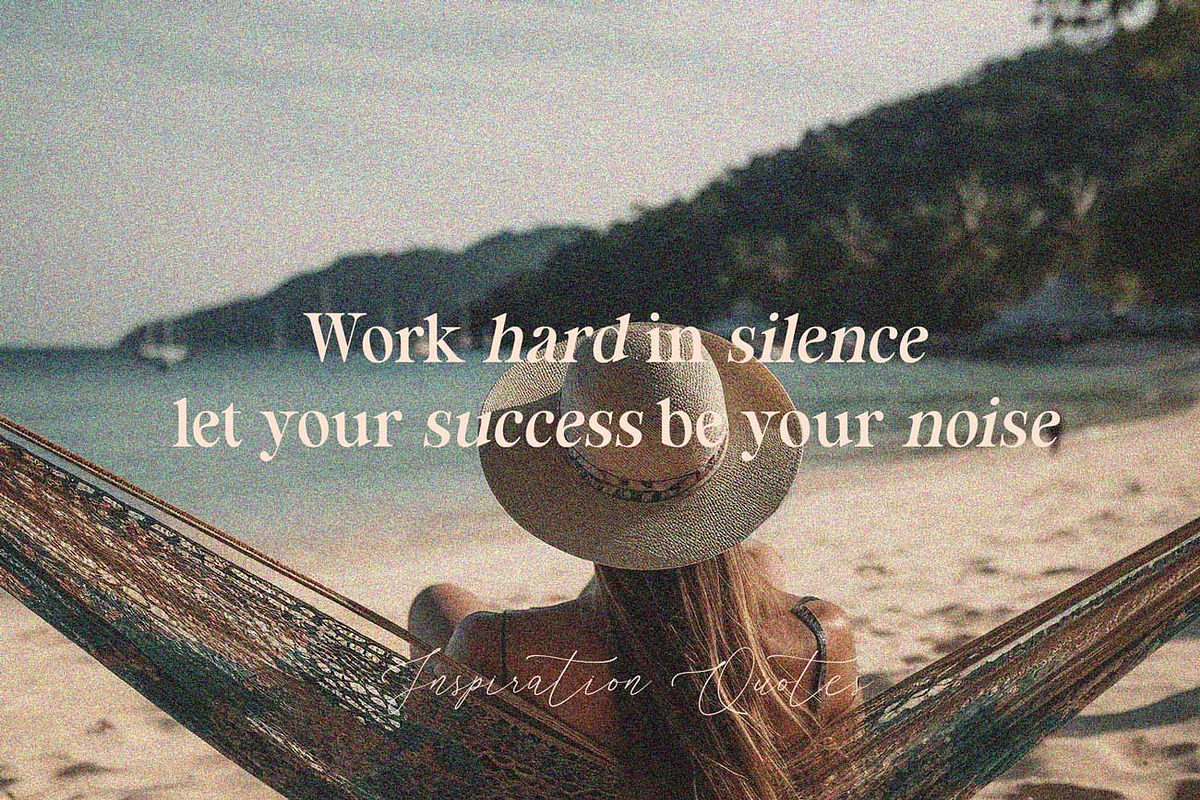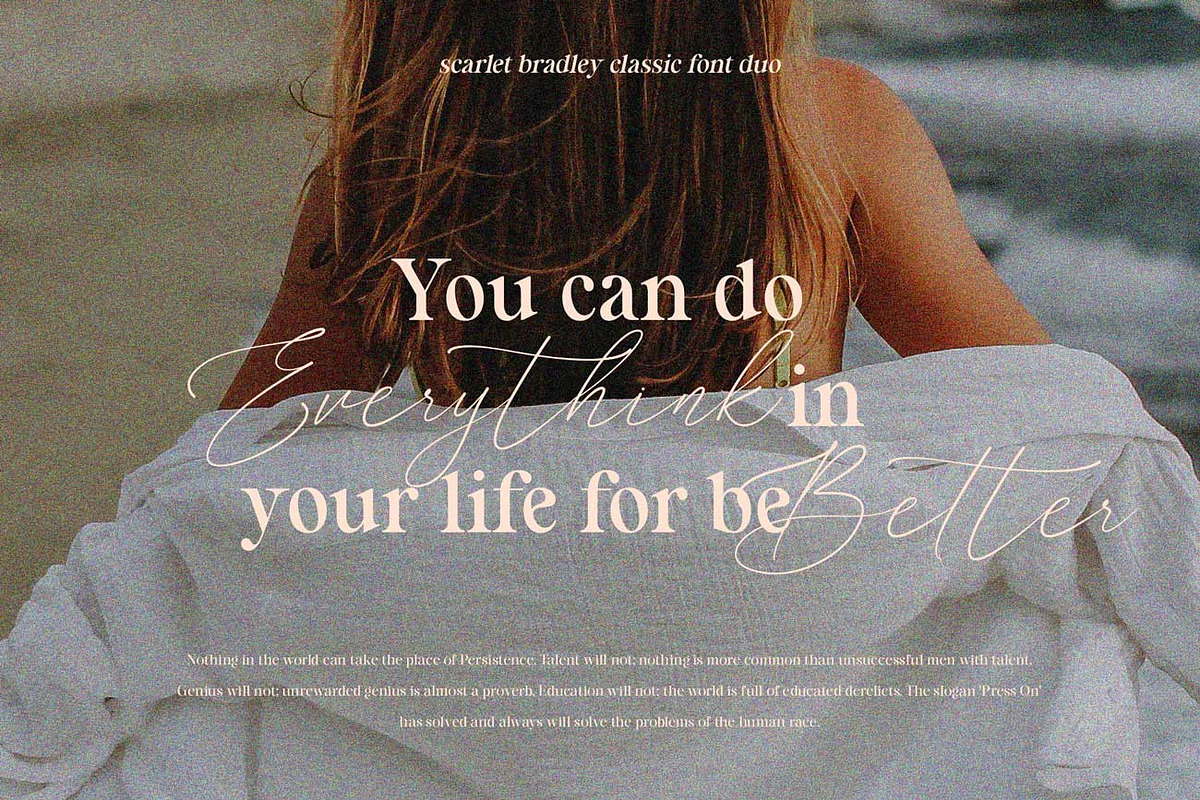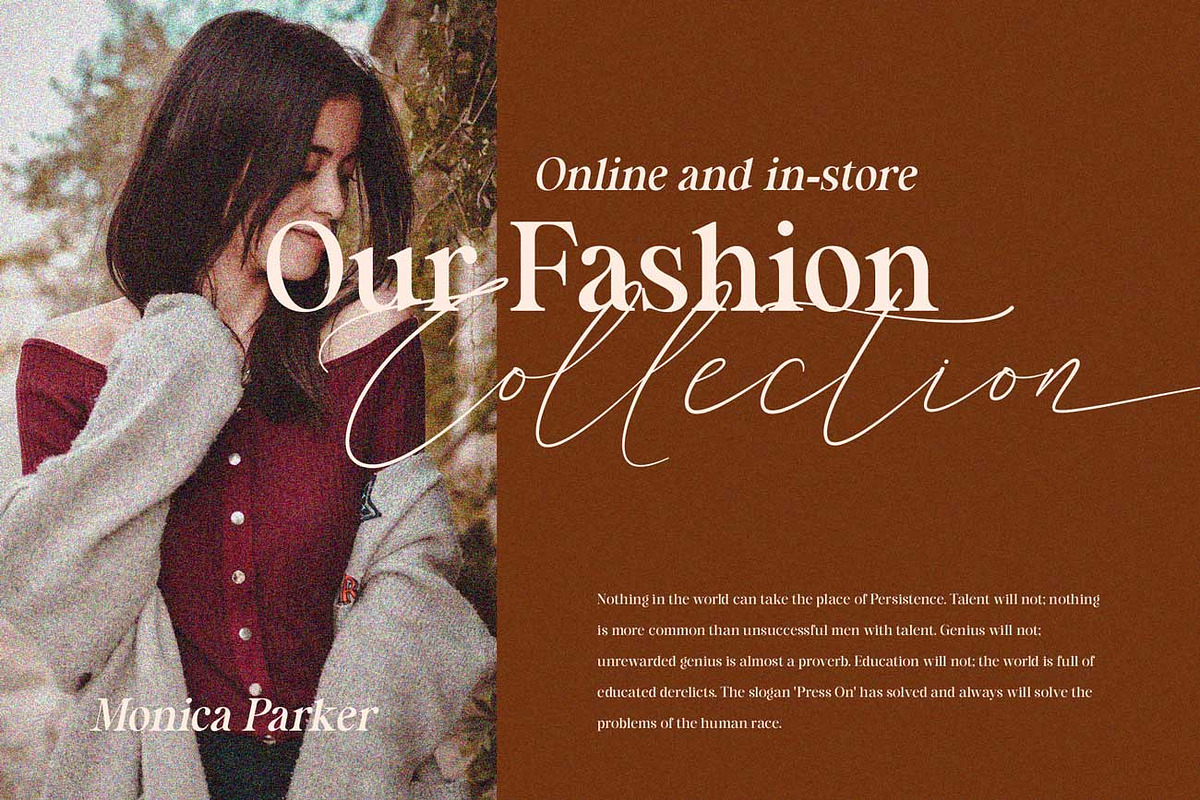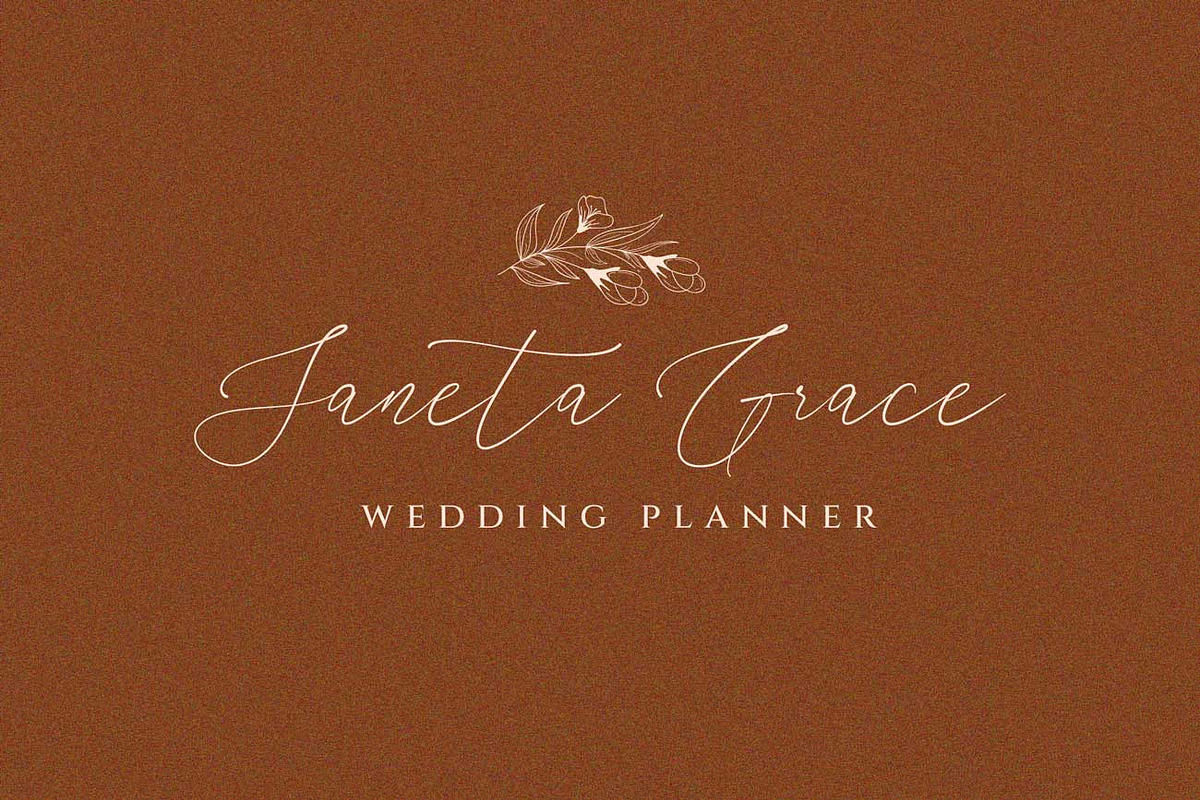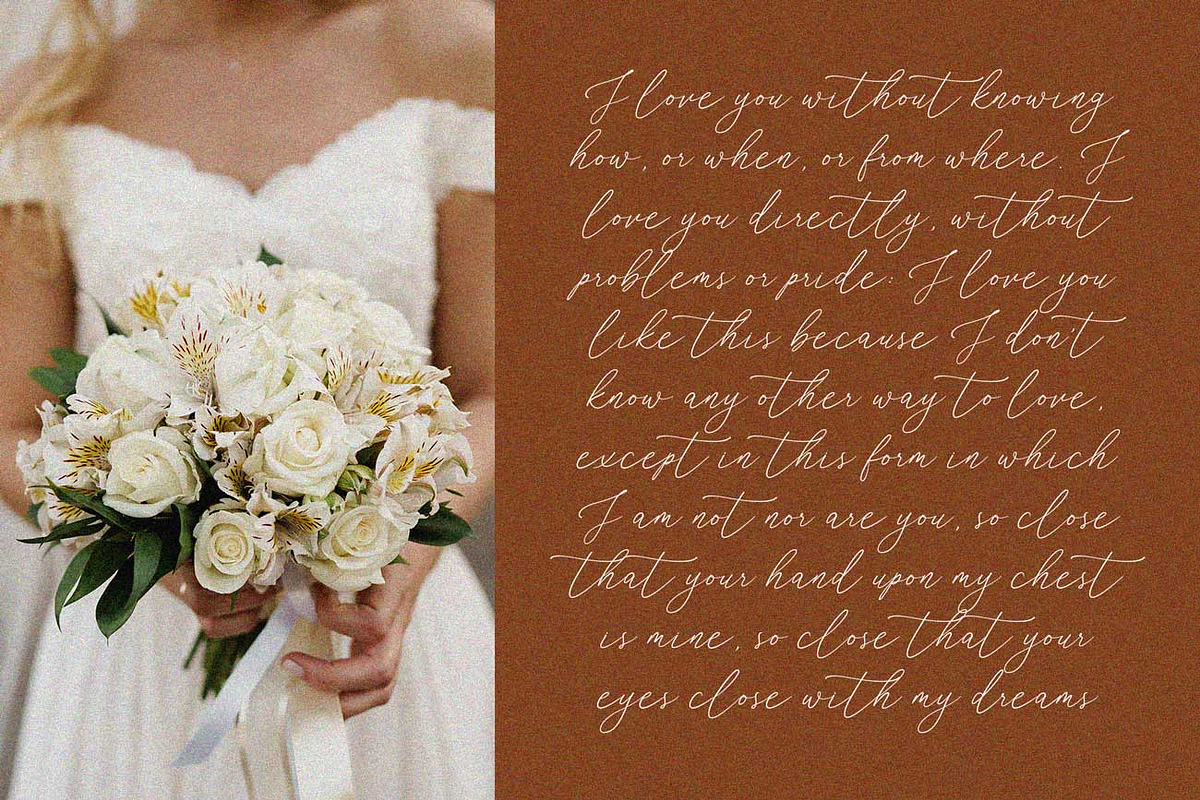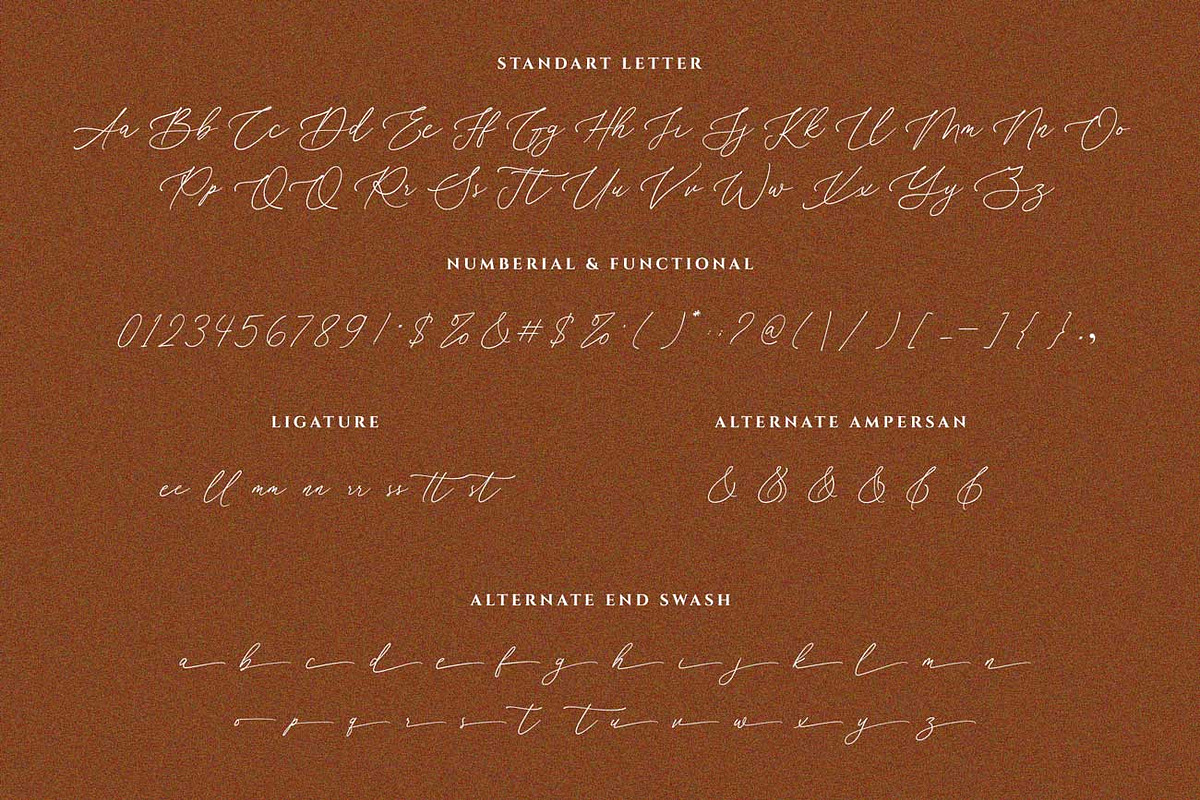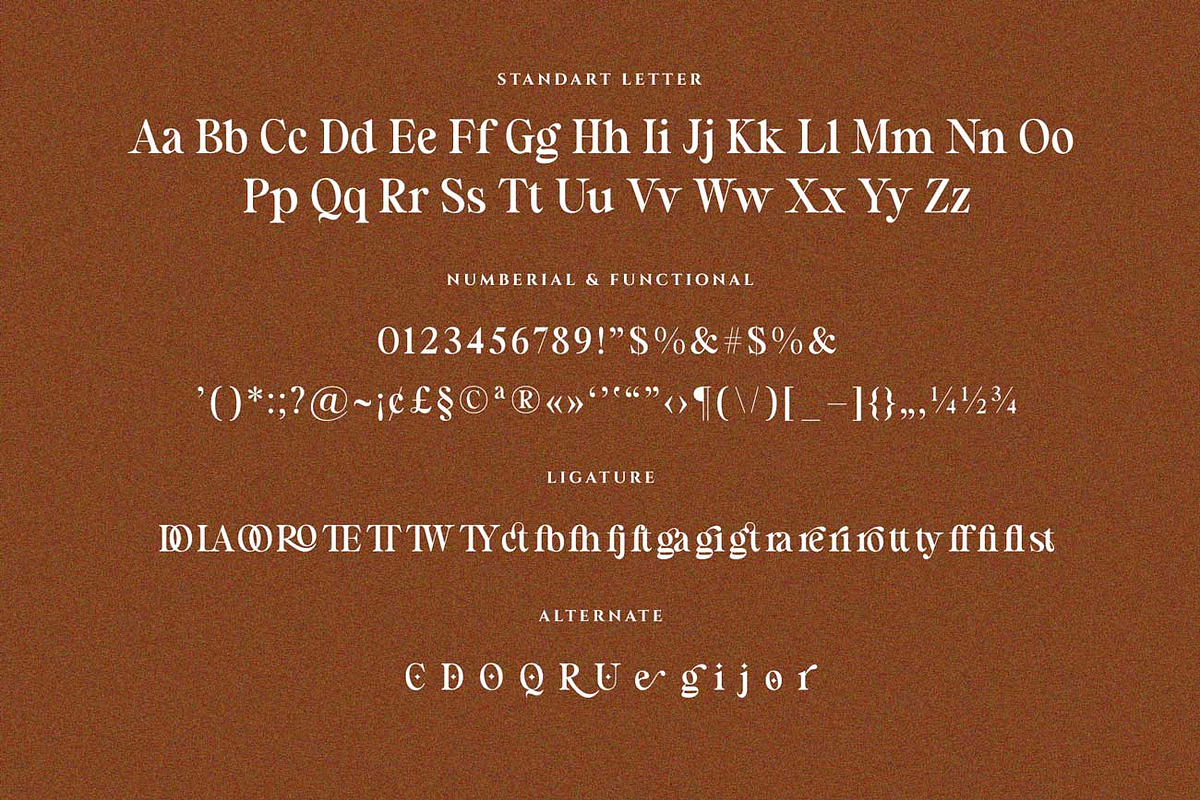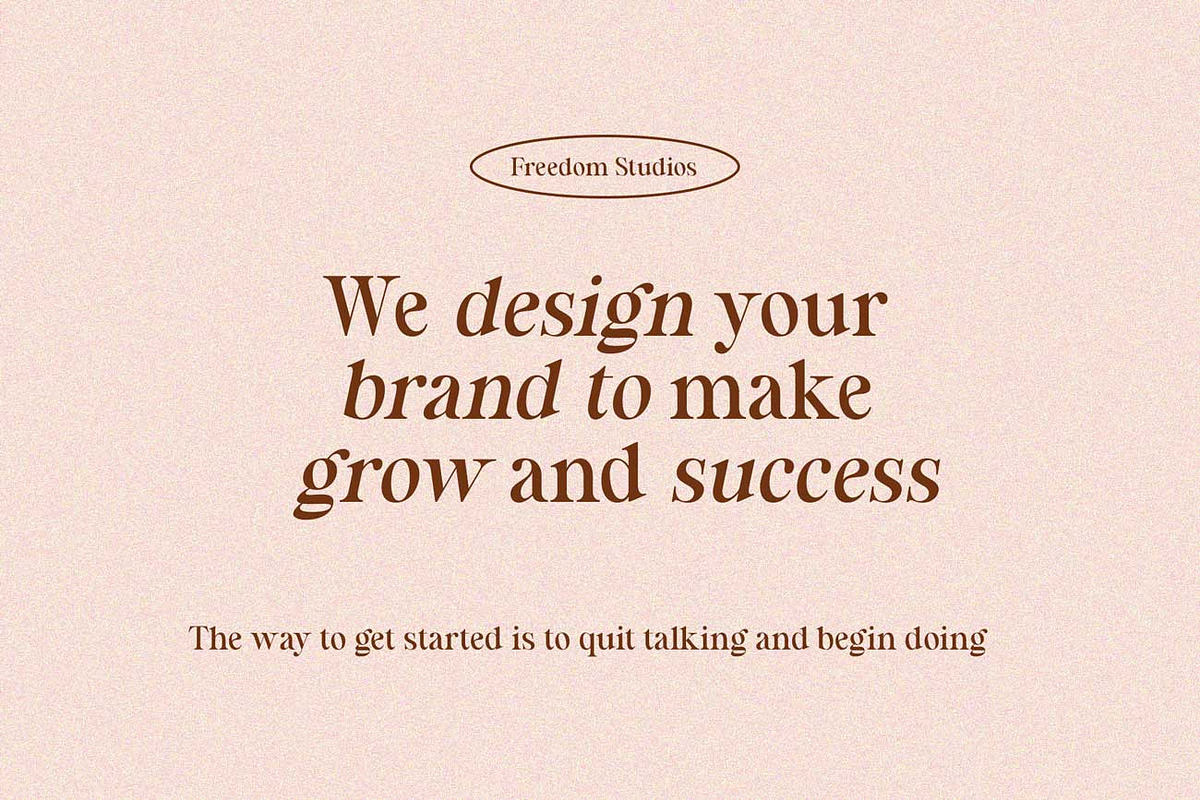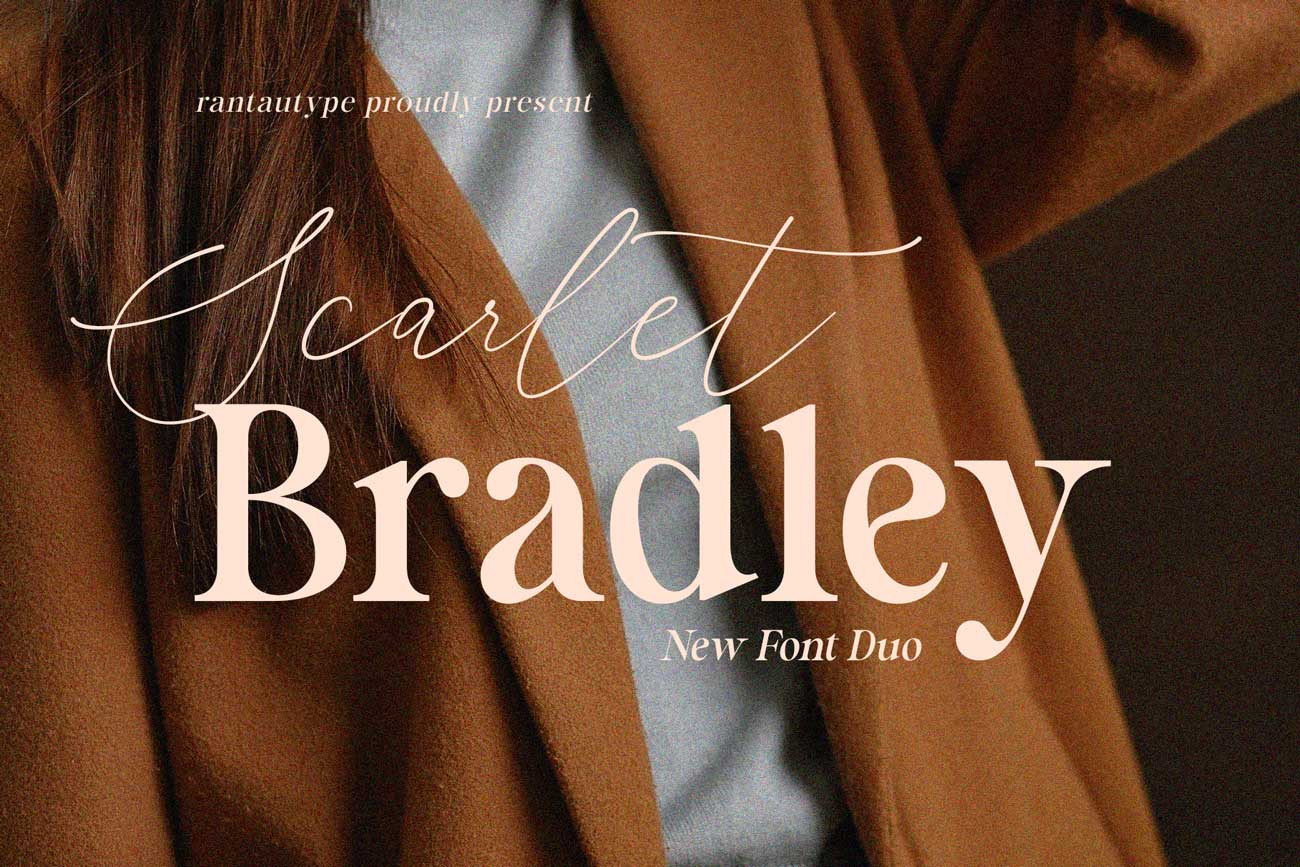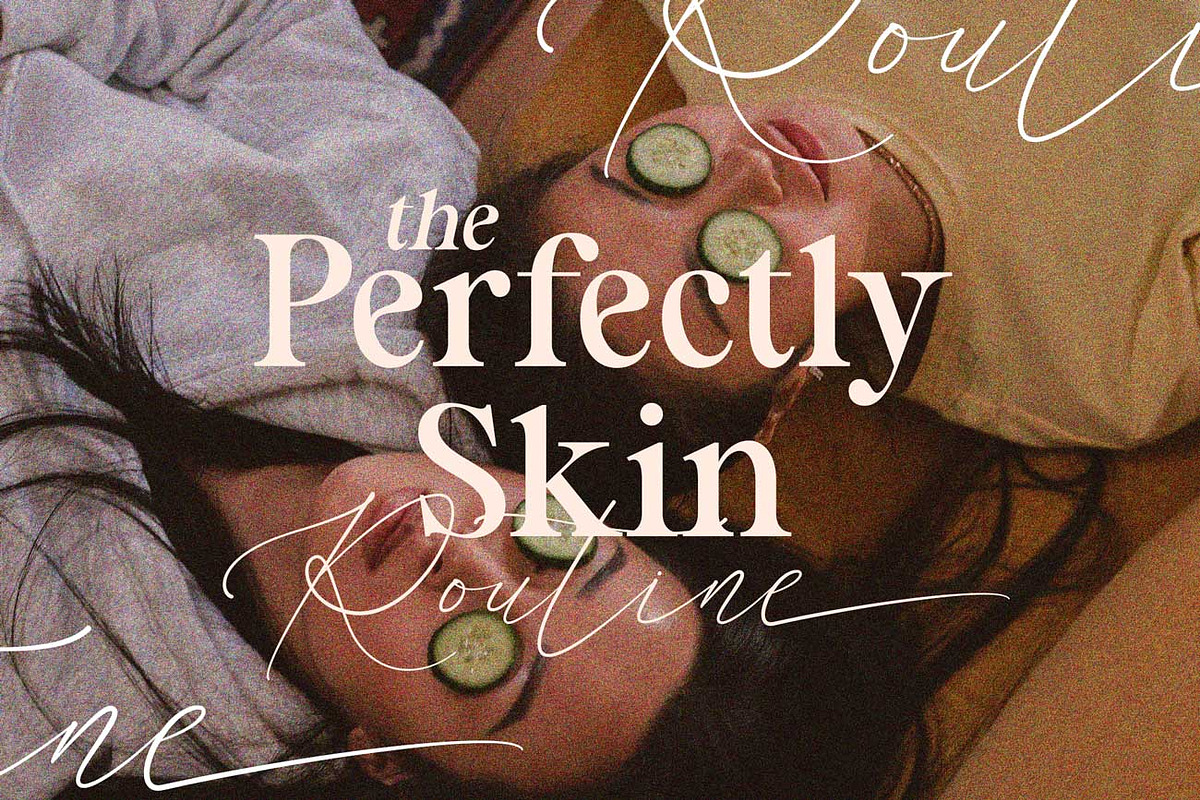
Scarlet Bradley Font Duo
Hi Ladies and Gentleman ! Introducing scarlet bradley font duo, Scarlet bradley is a beuatiful serif and script font with more alternative character - serif font with a complementary italic version.
Scarlet bradley come with elegant script font lowercase ending swash make your work more beautiful.
It is great for making logotype, branding, promotional ads, quotes design, packaging, merchandise, poster, merchandise, social media and much more. Let's make your work to next level!!
- Standar letter A-Z and a-z
- Alternate and ligature
- Multilinggual support